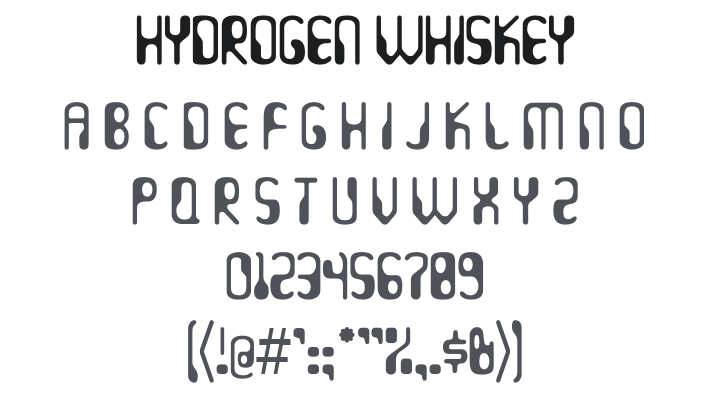
Hydrogen Whiskey Font
About Hydrogen Whiskey
Hydrogen Whiskey is a capsule-shaped, MICR-inspired retro techno display typeface that blends mysterious alien pod forms with 1960s digital numerals — each letterform feels like it was designed for reading by a machine on a distant planet. Its rounded, otherworldly geometry is unlike anything familiar. Perfect for sci-fi branding, space-age posters, retro-futuristic game titles, and any design needing genuinely extraterrestrial character.